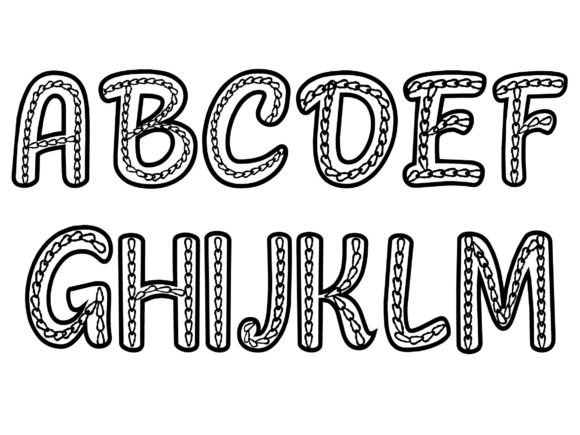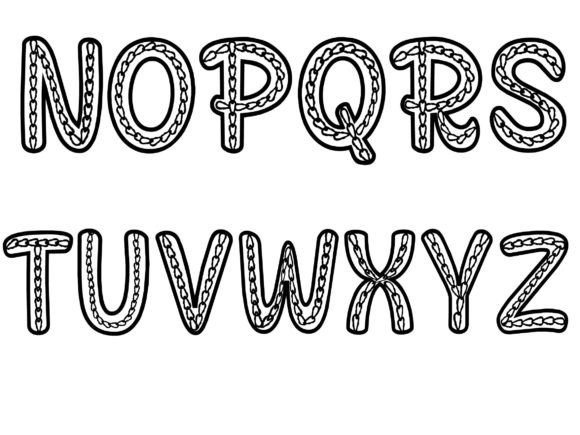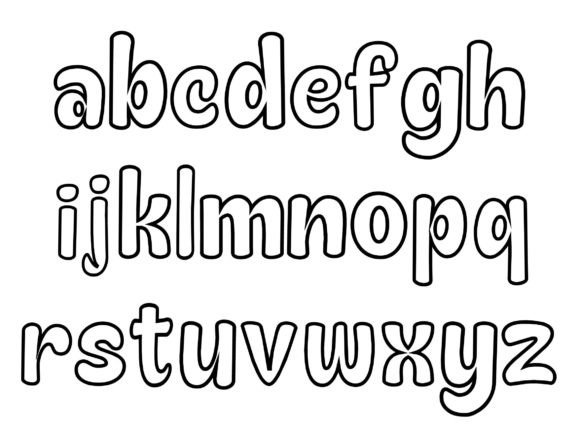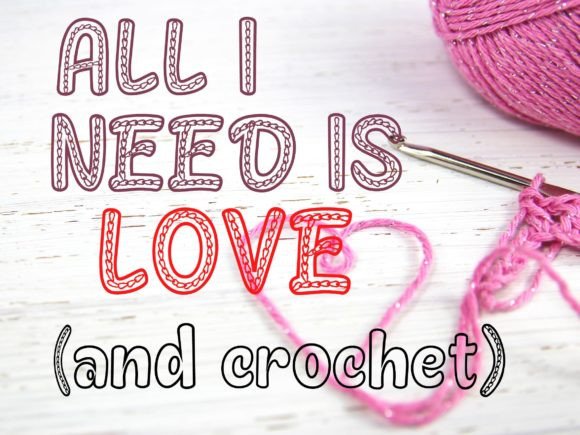
Introducing Chain Reaction Font: The Ultimate Game-Changer for Crocheters and Embroiderers
Calling all crocheters and embroiderers! Are you tired of using generic fonts for your craft projects? Do you want to add a personal touch to your creations and make them stand out? Look no further! We’re excited to introduce Chain Reaction, a brand new hand-drawn display font that features chain stitches, specifically designed for crochet and embroidery enthusiasts.
What is Chain Reaction Font?
Chain Reaction is a unique and playful font that mimics the chain stitches commonly used in crochet and embroidery. This font is not just a collection of letters and numbers; it’s a creative tool that allows you to embed genuine chain stitches into your designs. With Chain Reaction, you can add a touch of authenticity to your projects and make them look like they were made by a pro.
Features of Chain Reaction Font
- Hand-drawn with love: Chain Reaction is a carefully crafted, hand-drawn font that showcases the beauty of chain stitches.
- Chain stitch design: Each letter and number is designed to resemble chain stitches, giving your projects a realistic and textured look.
- Versatile: This font is perfect for a wide range of applications, from crochet and embroidery patterns to logos, branding, and marketing materials.
Benefits for Crocheters and Embroiderers
Chain Reaction Font is a game-changer for crocheters and embroiderers who want to take their designs to the next level. Here are just a few benefits of using this amazing font:
- Authentic look: With Chain Reaction, you can add a genuine chain stitch look to your projects, making them look like they were made by a professional.
- Time-saving: No need to spend hours creating custom chain stitch designs; Chain Reaction font does the work for you.
- Fun and creative: This font is a great way to add a personal touch to your projects and make them stand out from the crowd.
To get the most out of Chain Reaction Font, here are a few tips and inspiration to keep you going:
- Experiment with colors: Try pairing Chain Reaction Font with different colors and textures to create unique and eye-catching designs.
- Mix and match: Combine Chain Reaction Font with other fonts and design elements to create a look that’s all your own.